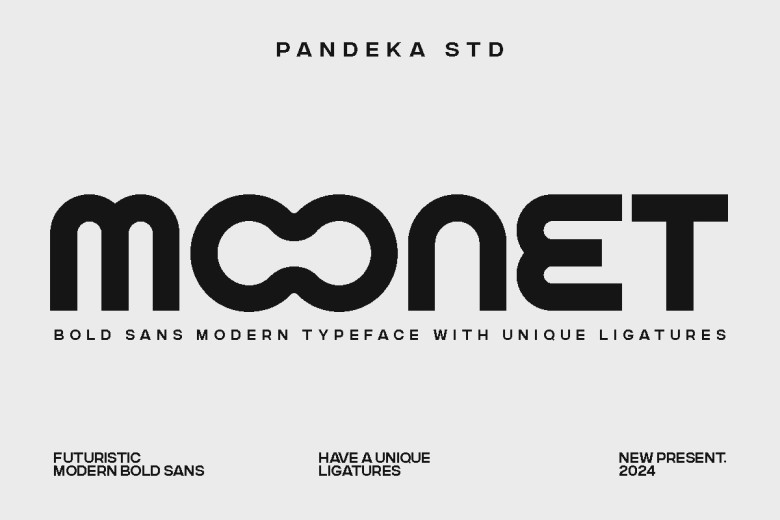
Moonet Font
Introducing Moonet! – A futuristic modern font with the set of ligatures. Moonet is a beautiful font, which organically fuses sophistication with simplicity of the form. The curves at each end of the letter ornaments bear evidence that this font is appropriate for the present time as well as the future.
Boldly simple and elegant, Moonet fits rather well in all kinds of scenario, which makes it rather universal. For logo design, layouts, invitations, schedules, banners, headlines, catalogues, promotions, and other previously media, Moonet was designed to respond to the visual challenge of technology.
Moonet has elegant and exclusive ligatures and that’s why it can enhance your branding to look futuristic and up-to-date!